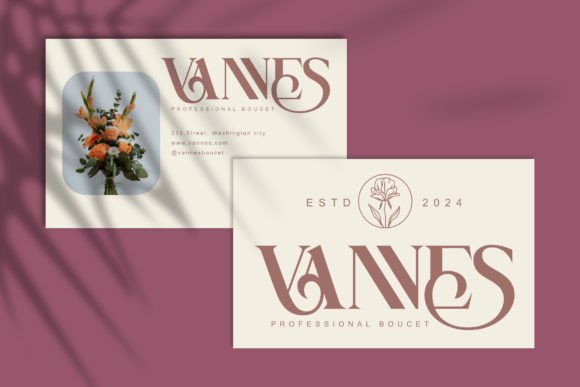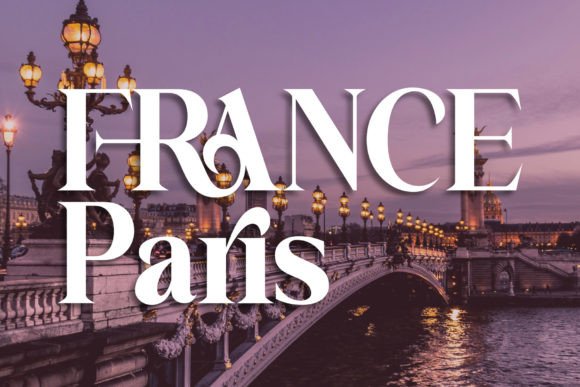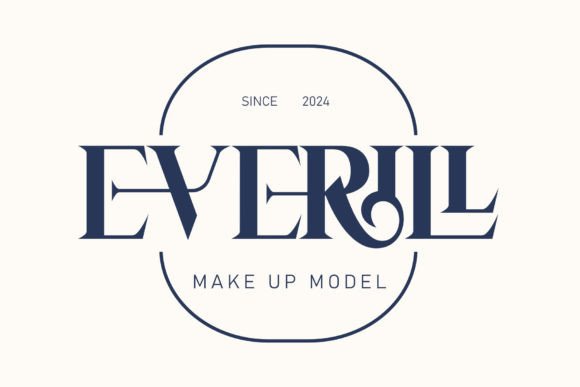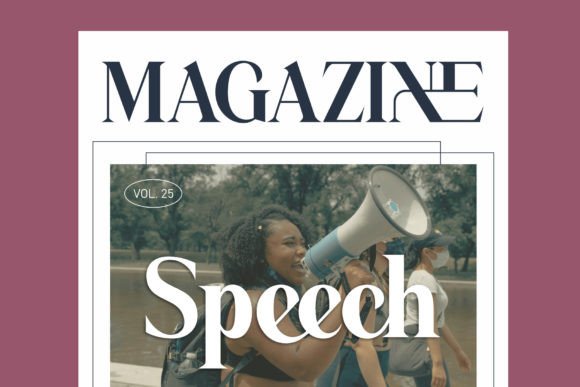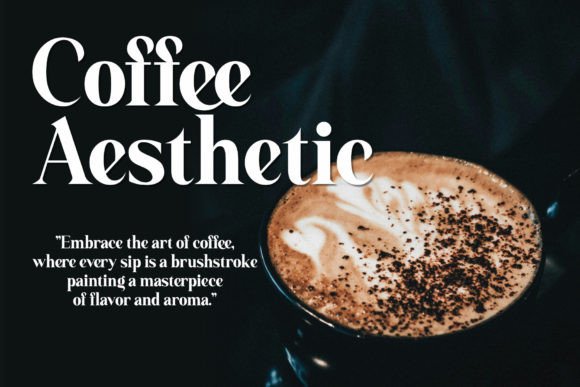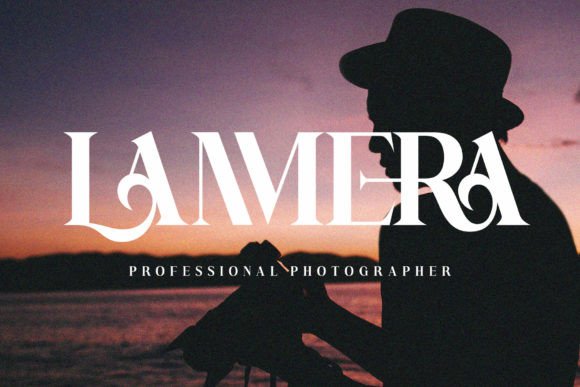
The Essinna Font: Elevate Your Designs with Elegance and Class
Ah, the elusive perfect font. You know, that one typeface that makes your design shine, tells your story, and resonates with your audience. I’ve been there, done that, and got the t-shirt (which, by the way, was designed with a not-so-great font). But today, I’m excited to share with you a stunning serif typeface that has become a game-changer in my design toolkit: Essinna.
A Personal Design Moment: The Struggle is Real
I recall working on a project for a high-end fashion brand. The client wanted a logo that exuded elegance, sophistication, and a touch of modernity. I scoured font libraries, tried out numerous combinations, but nothing seemed quite right. That was until I stumbled upon Essinna. Its elegant lines, classic serif details, and contemporary feel won me over. The client loved it, and I breathed a sigh of relief. If you’re a designer, crafter, or creative hobbyist looking for a font that checks all these boxes, you’re in the right place!
- ✨ Elegant and classy design that’s perfect for logos, magazines, and social media
- ✅ Modern and nostalgic feel that appeals to a wide range of audiences
- 💯 Already matched up and ready to use together for your next design project
- 🎉 Versatile and adaptable to various design styles and industries
⚠️ While Essinna is an excellent font, it’s not without its limitations. Some users might find that:
- 🤔 The font may not be suitable for very small text sizes or body text due to its elegant, yet delicate design
- ⚠️ Some OpenType features might not work seamlessly across all platforms or software
- Experiment with OpenType features, such as ligatures and stylistic alternates, to add a touch of elegance to your text
- Explore the various glyphs, ligatures, and stylistic alternates to customize your text
Rumor has it that Essinna was inspired by the timeless designs of classic fashion magazines and the sophistication of luxury brands. The designer aimed to create a font that would evoke a sense of elegance, style, and modernity, while still paying homage to traditional typography. Whether or not this story is true, one thing is certain – Essinna is a masterpiece that brings a touch of class to any design.
Q: What makes Essinna suitable for logos and branding?
A: Essinna’s elegant and classy design makes it perfect for creating memorable logos and branding materials that exude sophistication and style.
Q: Can I use Essinna for body text and articles?
A: While Essinna is primarily designed for headlines and titles, it can be used for body text in certain contexts. However, its delicate design might not be suitable for very small text sizes or extensive blocks of text.